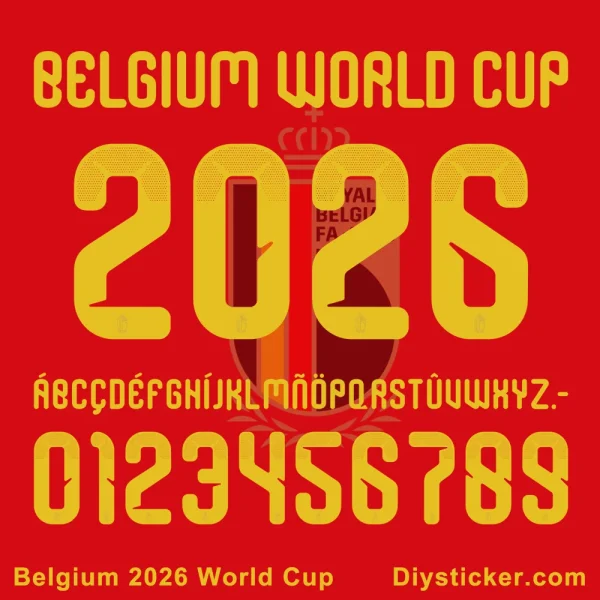
Belgium 2026 World Cup Font Vector Files
Show your support for the Red Devils with the official Belgium 2026 World Cup Font. This distinctive typeface, featuring unique characters and stylized elements, is used by the Royal Belgian Football Association for its official World Cup kits and tournament graphics.